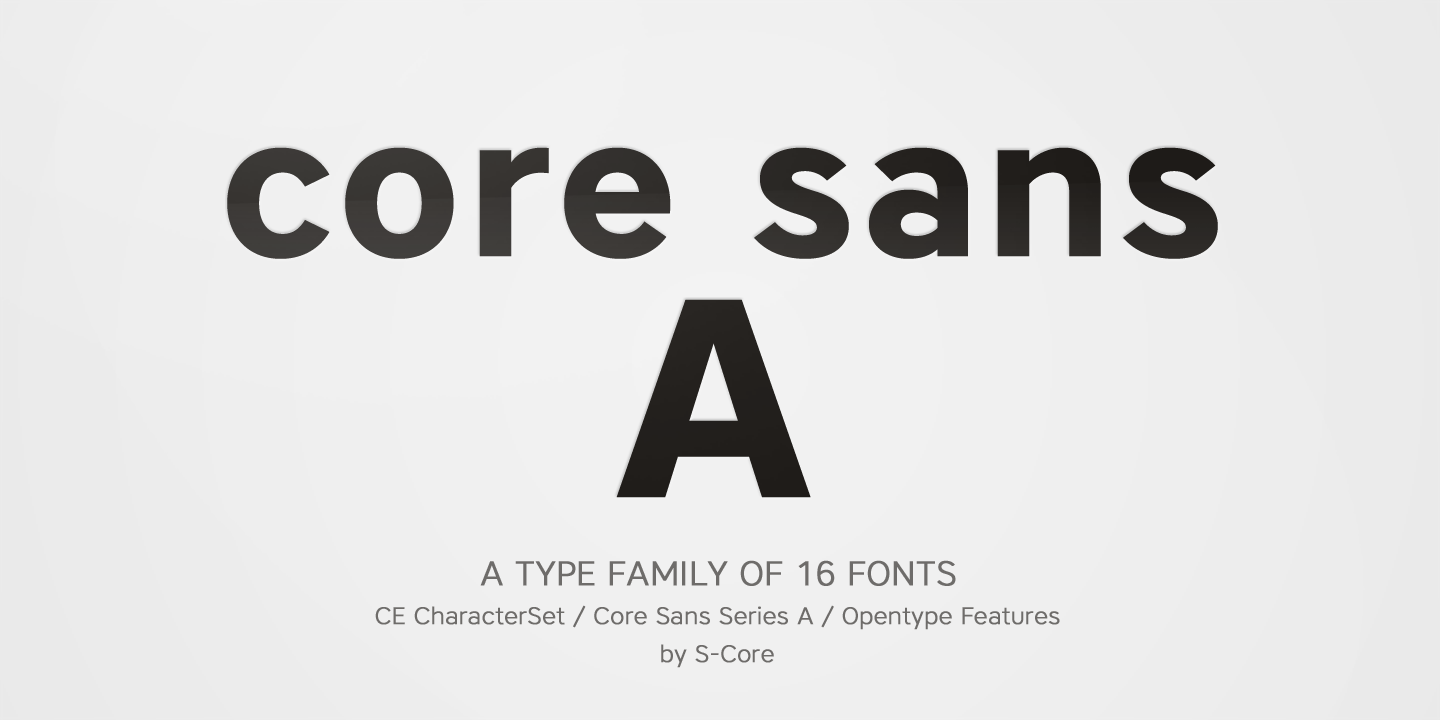
Core Sans A Font is ideal for corporate identity systems, professional documentation, clean web design, modern signage solutions, business presentation materials, minimalist branding projects, technical manual design, contemporary magazine layouts, user interface typography, and versatile digital applications.
What makes Core Sans A Font exciting is its exceptional versatility and refined simplicity that delivers outstanding performance across every design application. This masterfully crafted sans-serif typeface features perfectly balanced proportions with optimized letterforms that ensure maximum readability while maintaining sophisticated neutrality. The font's clean geometry and precise spacing make it the ultimate foundation for professional communications requiring both clarity and contemporary appeal in today's design landscape.
The Core Sans A Font family includes comprehensive professional variations: Thin, Light, Regular, Medium, Bold, Black, and their corresponding Italic versions. Additionally, the family offers Condensed and Extended variants for specialized layout requirements. Each style maintains the core systematic design while providing extensive flexibility for complex typographic hierarchies and diverse communication needs.